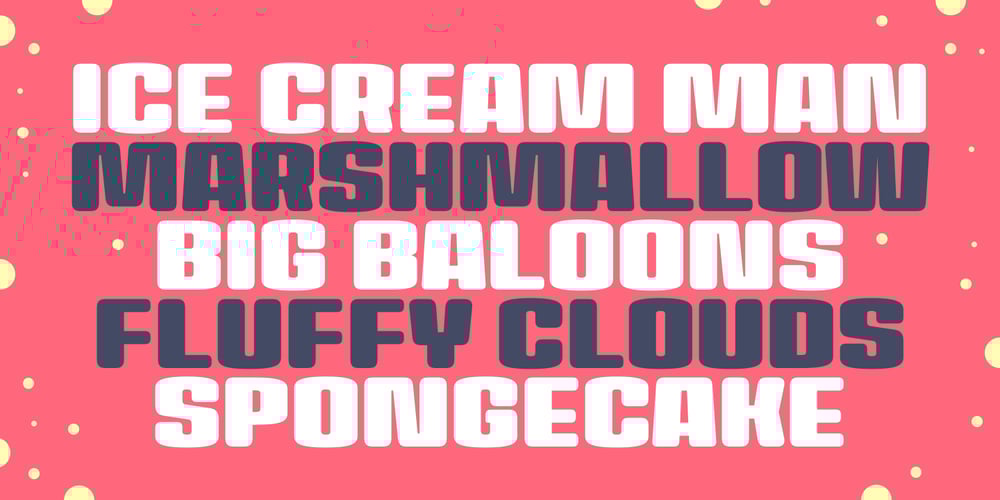
House Soft Font Family was designed by Dan Jones and published by TypeUnion. House Soft contains 100 styles and family package options. House Soft is the curvy, fun little brother of House Sans. Its exaggerated rounded corners give it a playful feel that will bring happiness and joy wherever it’s used. Like its big brother, House Soft is also made up of 100 weights in 5 useful widths (Compressed to extended) that make it a versatile font. From big bold headlines to playful brands House Soft offers the flexibility and uniqueness you and your project deserve.Go soft or go home.